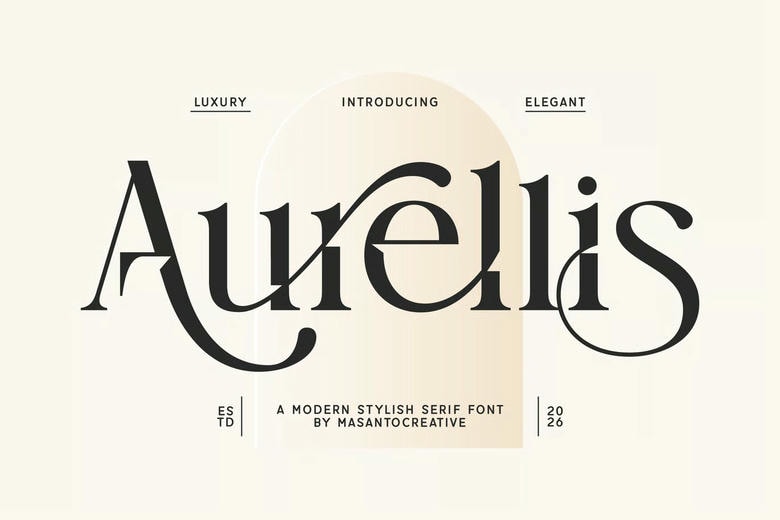
Aurellis Font
Aurellis Font is a contemporary stylish serif font that is meant to add a touch of luxury and sophistication to your creative work. With high contrast strokes, elegant curves, and fashionable ligatures, this font is ideal in branding, editorial design, fashion, and high-end visual identities.
Aurellis offers a classic style with a modern touch with its distinctive character shapes and well-designed alternates that provide a classic look and a modern touch. It is effortlessly graceful whether applied to logos, websites, packaging, or social media to add visual appeal.
Aurellis Serif Font